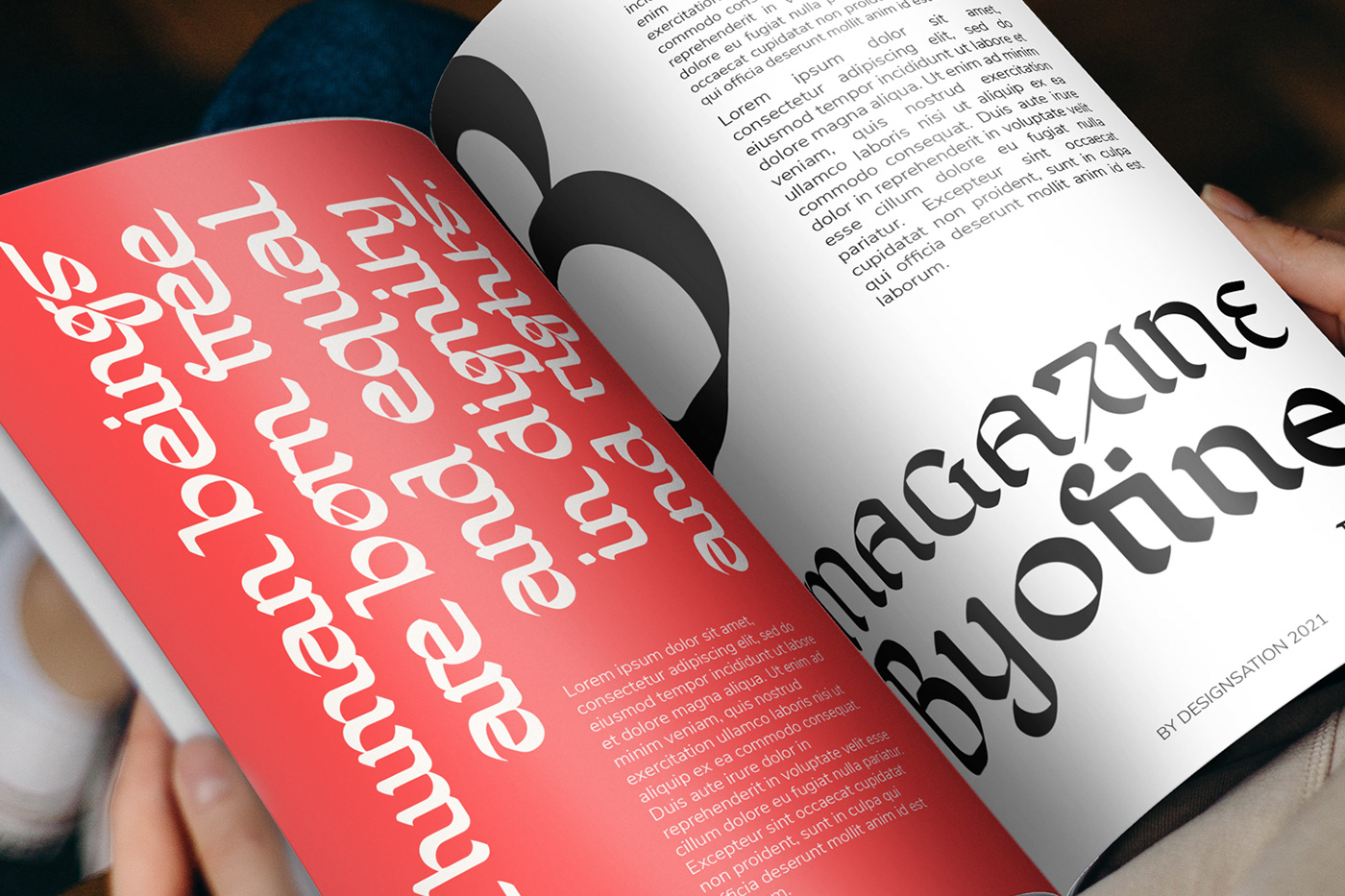
Byofine Experimental Neue style Display Black Letter typeface, inspired by Arabic Calligraphy and Brahmi Text. Fit for any Headline needs, especially Tattoo, Magazine, Creative Company, Rapper, Barber, Garage, Motorcycle, Band, also used for printed design, web font, branding, logotype, and Social media promotion.
The shape reflecting masculinity, wildness, also brave look for your designs.
Some Open Type features included, like alternates or stylistic Set, make your design looks authentic as one simply changes from basic character then switch it to activate the feature.
OpenType features
In the form of alternating and ligatures that add to the exotic impression of this typeface. Compensating for the appearance of letters that seem mandatory in inserting OpenType features in various types of formatted fonts. These are specially designed, and it is our responsibility as creators to experiment with you as a user in using these features.
The multilingual
We provide Latin Character, which contains special marks at the top and or bottom of the font. To make it more accessible to those of you who use this typeface in more specific Latin in your project.
This font we deliberately dedicated to various needs.
However, apart from that, our team also had time to test this font for some special needs that we could think of. Including Headline needs, especially Movies or Movie Posters, Magazines, Creative Companies, Video Games, Mobile Games, Horrors, Thrillers, Documentaries needed, also used for print design, web fonts, branding, logotype, and your social media promotions.